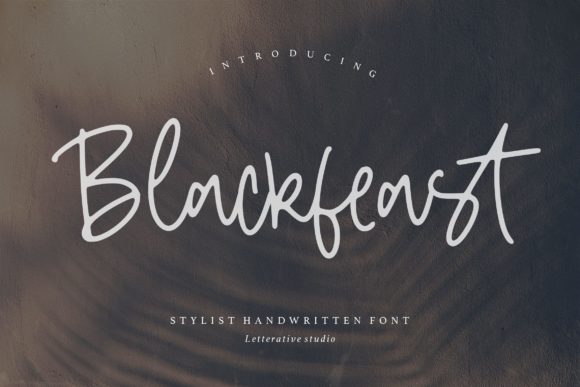
**Introducing Blackfeast Font: The Epitome of Elegance and Distinction in Your Design Endeavors**
In the realm of typography, where letters dance and stories unfold, there exists a font that captivates hearts and ignites imaginations—Blackfeast Font, a creation of letterativestudio. With its graceful strokes and timeless charm, this script font stands as a testament to the enduring power of handwritten artistry.
**A Brushstroke Symphony of Beauty and Elegance**
Blackfeast Font is an ode to the art of calligraphy, where each letter is a brushstroke symphony, flowing with grace and fluidity. Its delicate curves and intricate details evoke a sense of nostalgia and romance, reminiscent of love letters penned in a bygone era.
**Unleash Your Creativity with Limitless Applications**
From the intimacy of wedding invitations to the warmth of thank-you cards, Blackfeast Font adds a touch of heartfelt elegance to every occasion. Its versatility extends to quotes and greeting cards, where its presence elevates words into heartfelt expressions.
**Branding with a Distinctive Touch**
In the competitive world of branding, Blackfeast Font emerges as a powerful tool for creating logos and business cards that leave a lasting impression. Its distinct character lends a touch of sophistication and uniqueness, ensuring your brand stands out from the crowd.
**A Timeless Masterpiece for Every Design Vision**
Whether you're a seasoned designer or just starting your creative journey, Blackfeast Font is a timeless masterpiece that seamlessly blends with any design vision. Its innate charm and adaptability make it a perfect choice for projects that demand a touch of handwritten elegance.